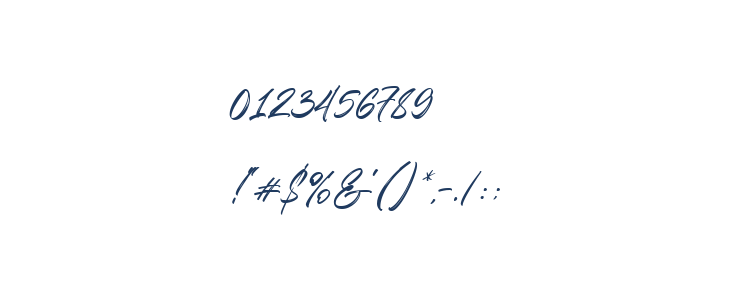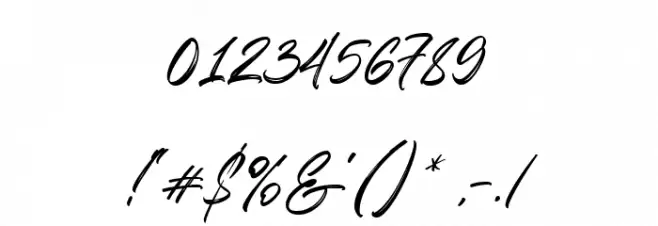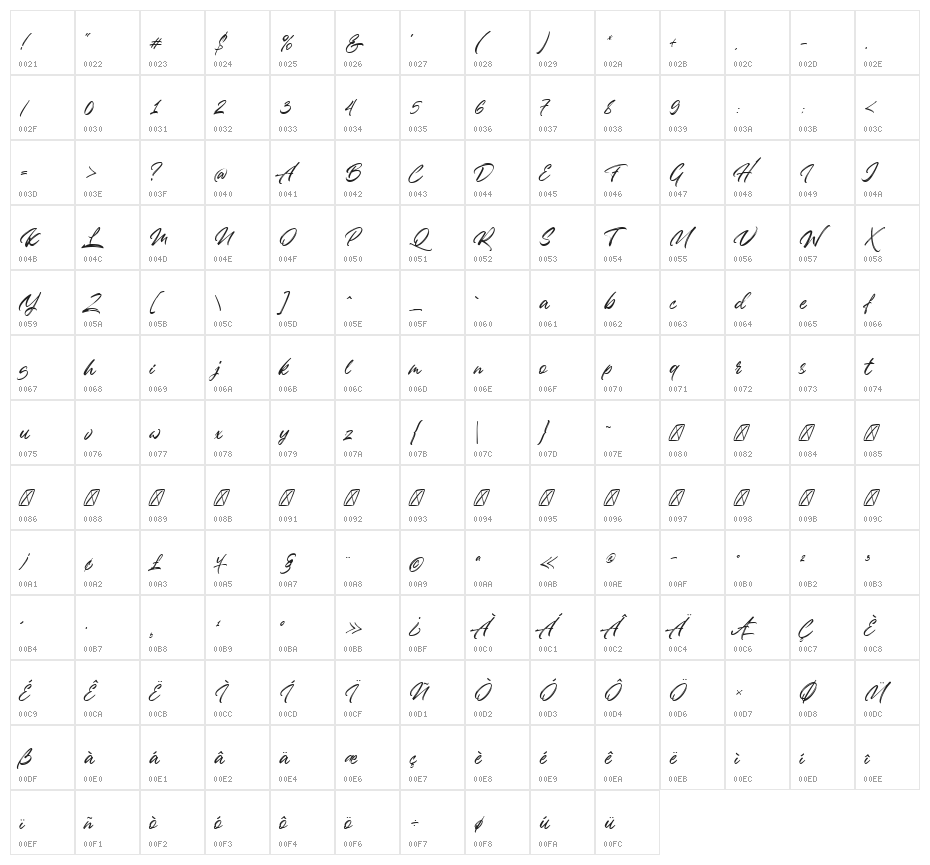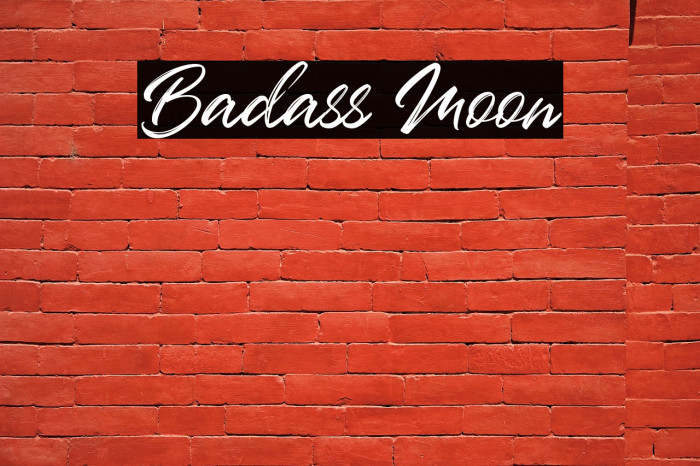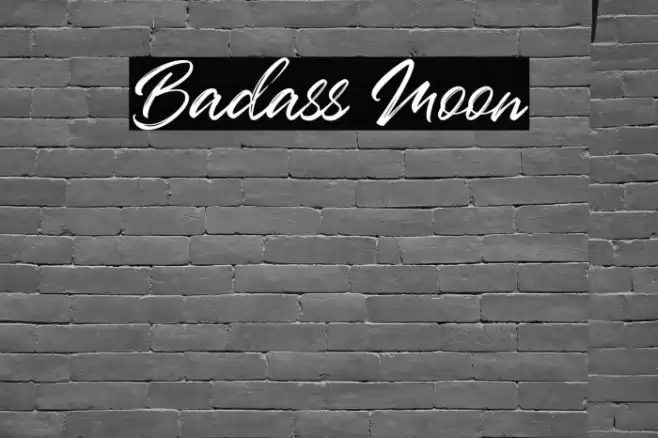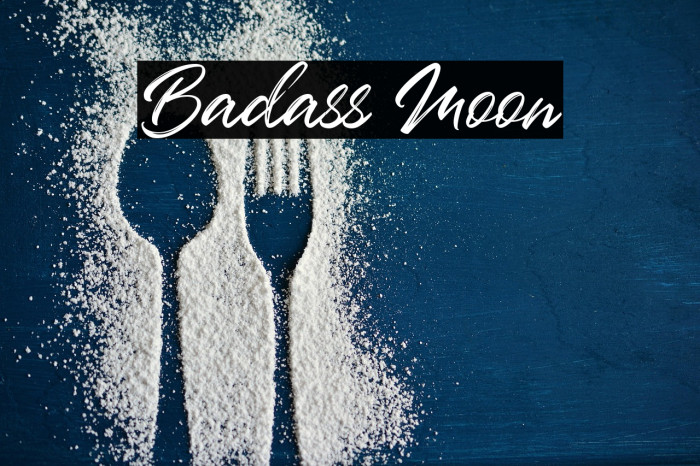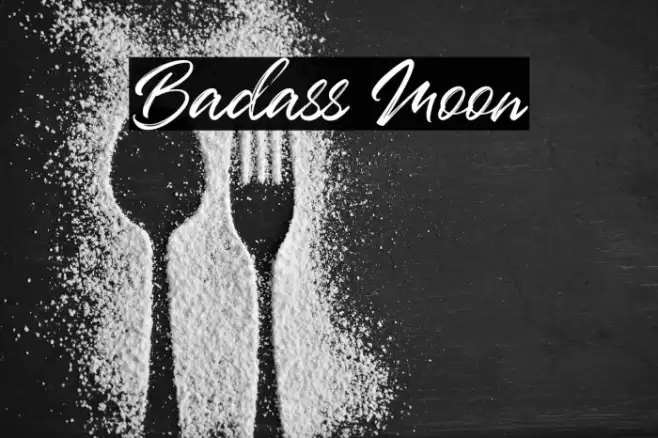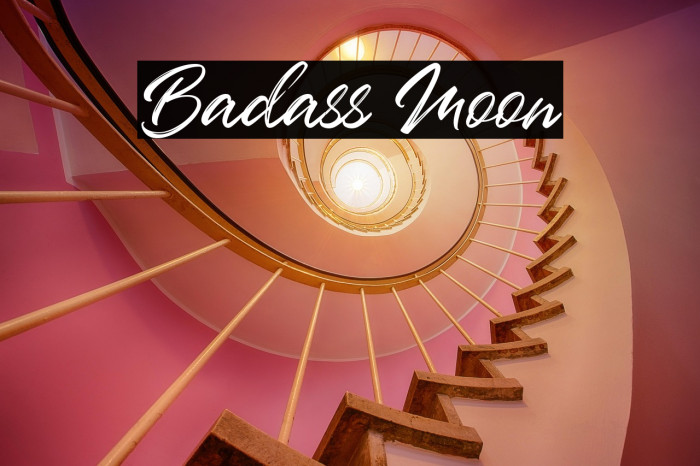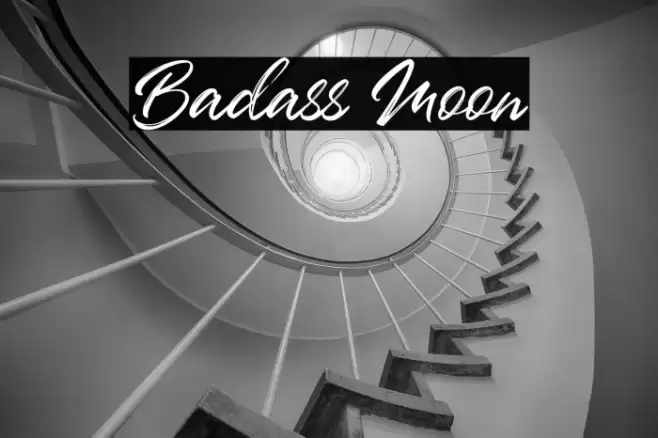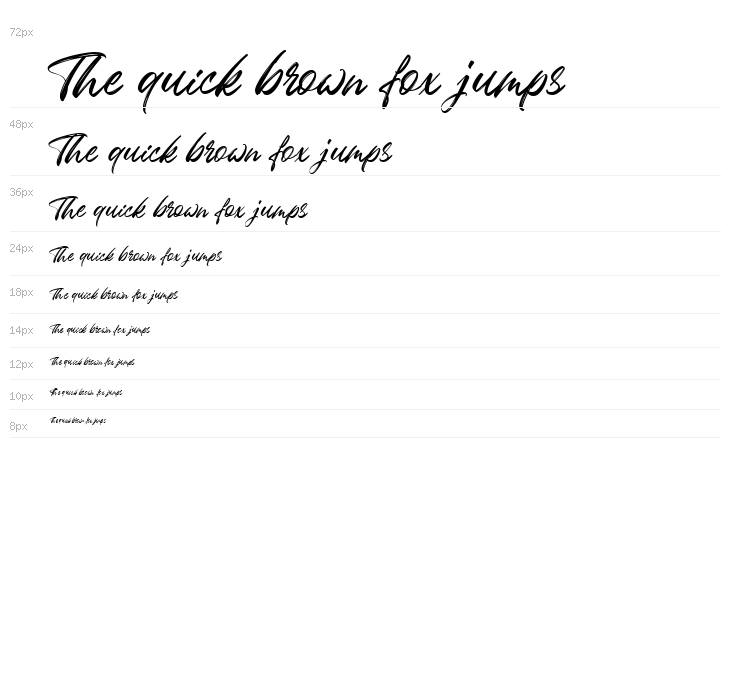
Badass Moon Font
Badass Moon Description
This font exudes a bold and dynamic personality with its fluid, cursive style. The letters are intricately designed with sweeping strokes and a sense of movement, giving it a lively and energetic feel. The uppercase letters are particularly striking, with exaggerated loops and flourishes that add a touch of elegance and drama. The lowercase letters maintain a consistent flow, complementing the uppercase with their smooth curves. Numbers and special characters are equally expressive, maintaining the overall aesthetic. This font is perfect for projects that require a touch of sophistication and flair.
| Use Case | Logos, Invitations, Headlines |
| Proposed Projects | Ideal for branding, invitations, logos, and creative headlines. |